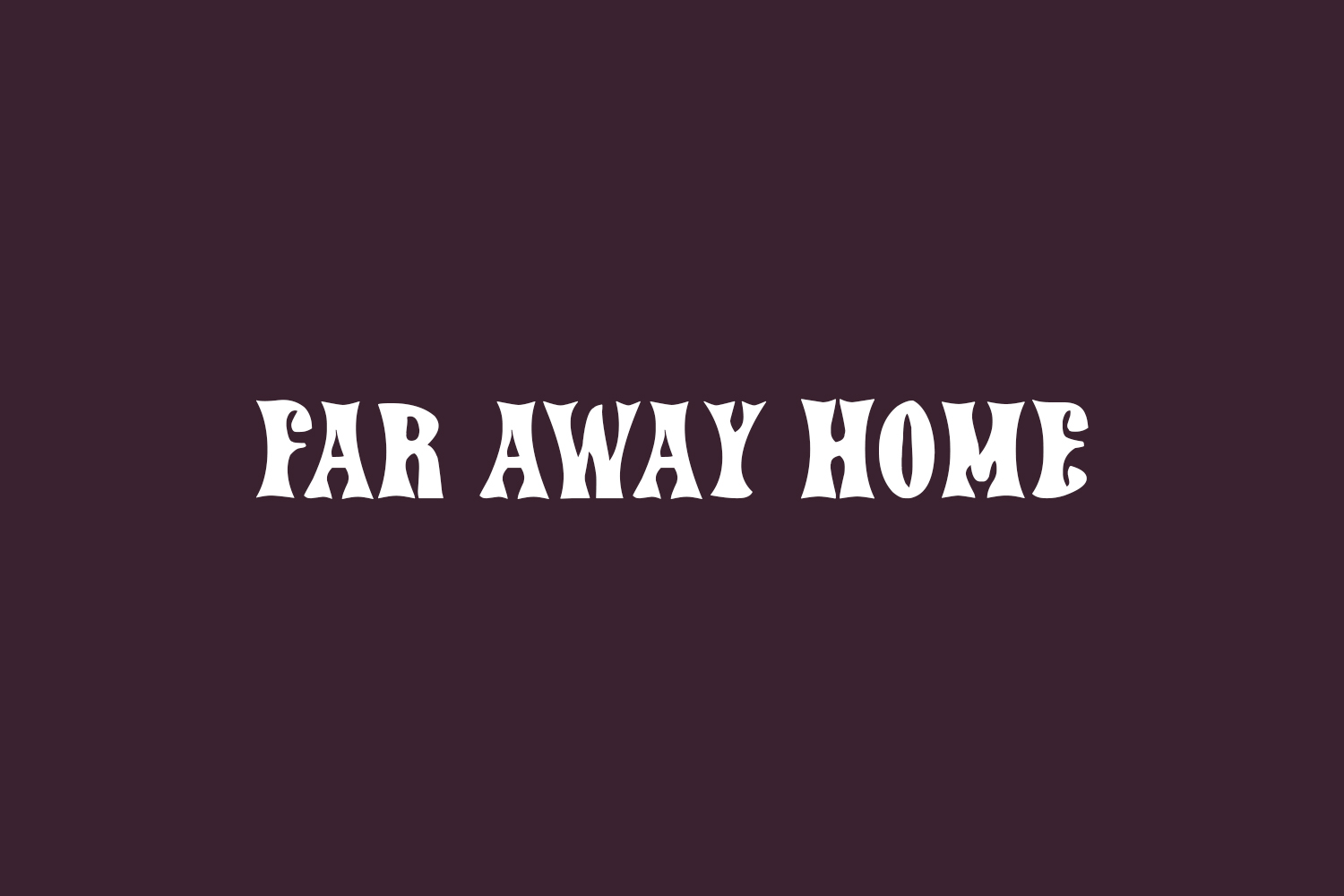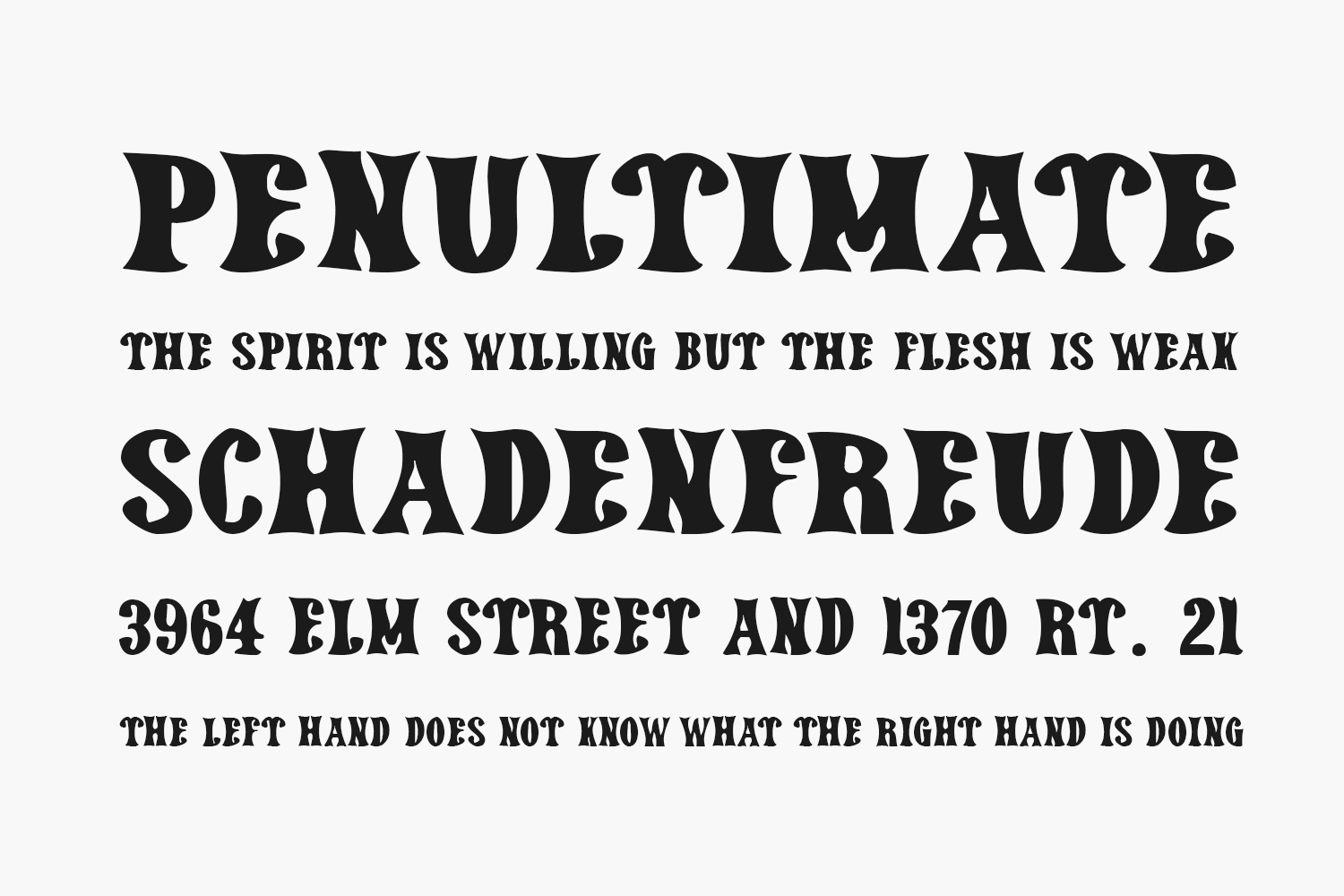
Introducing the fancy groovy Far Away Home Free Font – a typeface that’s as captivating as it is unique. Its funky and retro-inspired design is perfect for adding a touch of playful sophistication to any project.
With its flowing curves, bold lines, and whimsical flourishes, Far Away Home Free Font exudes a sense of effortless coolness that’s sure to catch the eye. Whether you’re designing a logo, creating a poster, or crafting a social media graphic, this font is the perfect choice for those looking to make a statement.